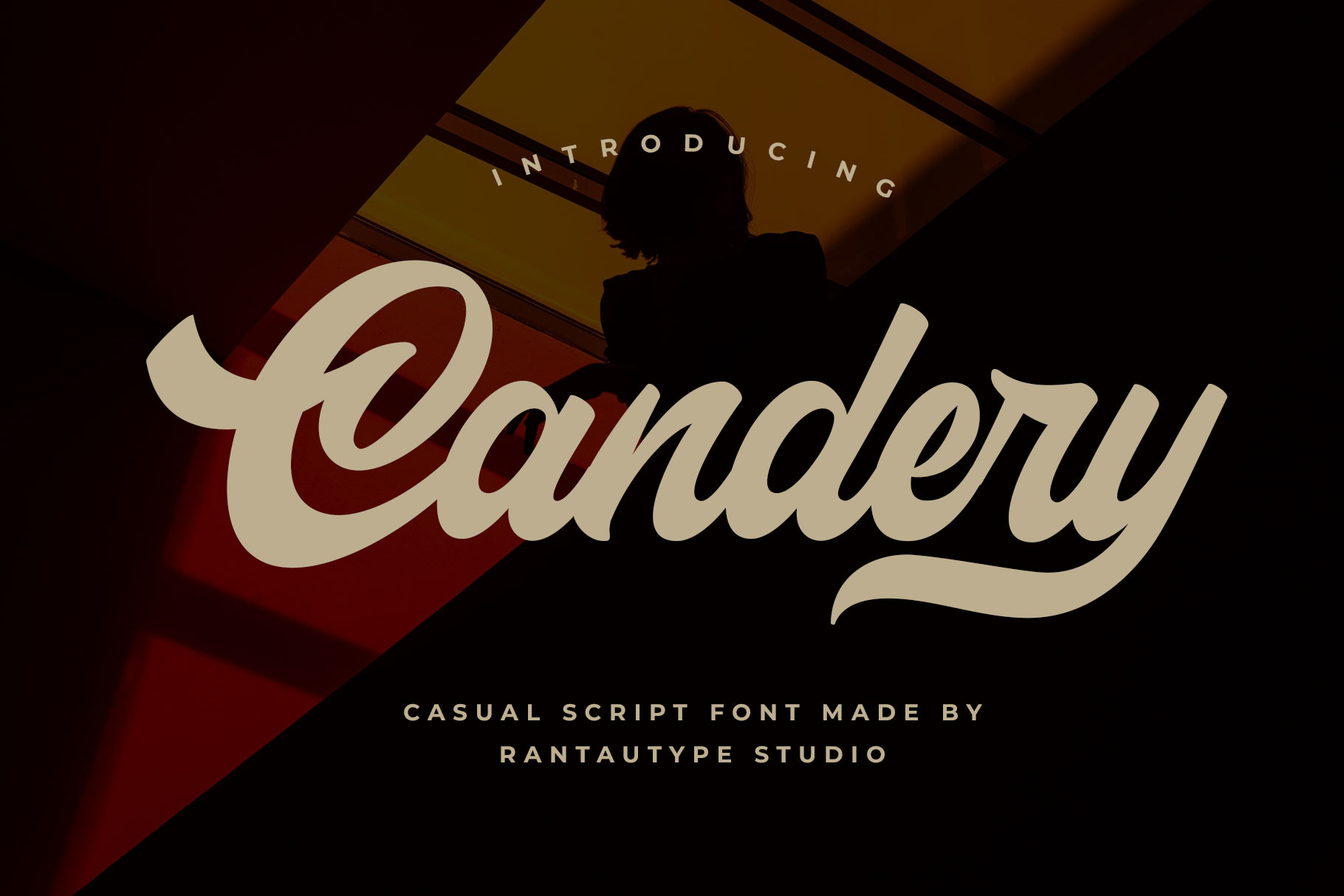
Candery Casual Script Font
Candery is casual script font made with passion and style. Candery bring authentic handwritten with stylist and modern to make your design project stand out! Candery come with more feature with alternate, ligature and already support multilingual support character.
Candery is a perfectly choice for any creative endeavor,modern, chic, lifestyle design such as logotype, title, cover, branding, invitations, wedding designs, display and magazine, social media posts, advertisements, printed quotes, product packaging, corporate brand, product designs, labels, photography, watermarks, special events and any other project with handwritten touch.
- Alternate and ligature